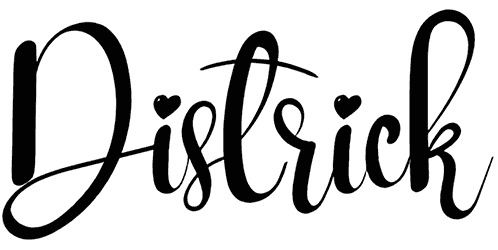
Districk Font
Would you like to have a distinct and lovely outward for your present project? As a smooth, Valentine’s Day font, this item is able to add an adorable vibe to your words. Districk font with a full cover of characters will serve as a unique choice for lots of projects like banners, postcards, invitations, and more of the same.